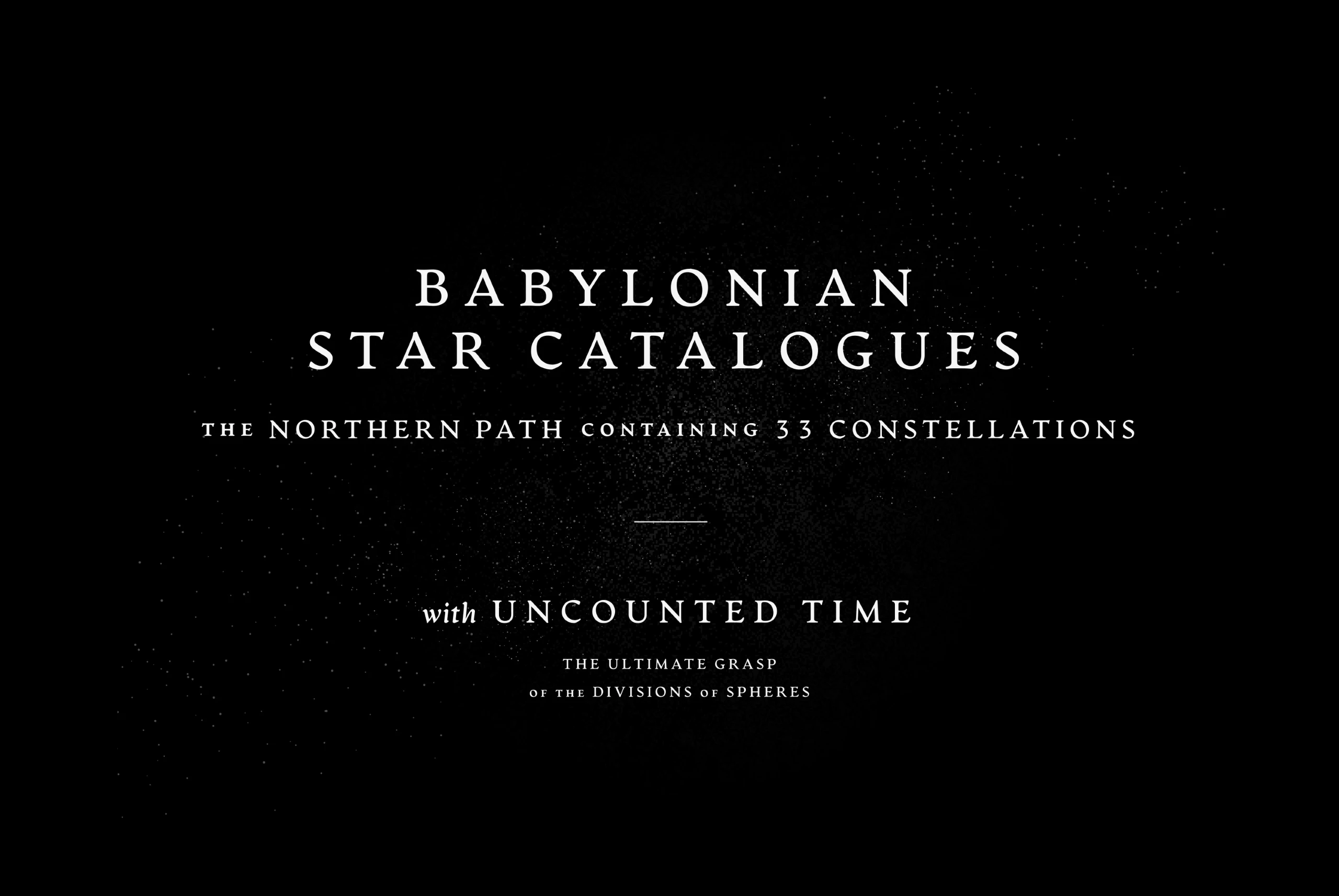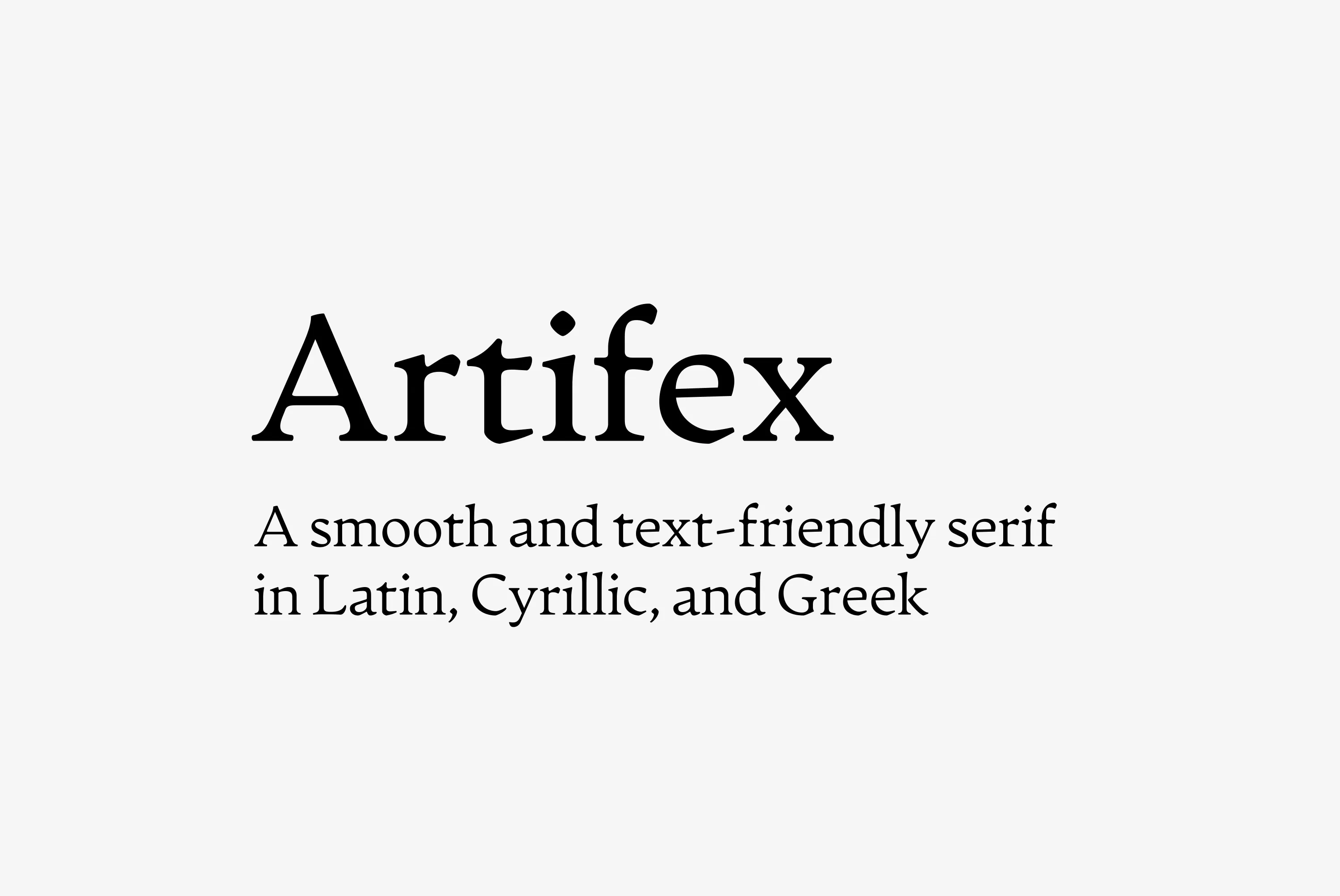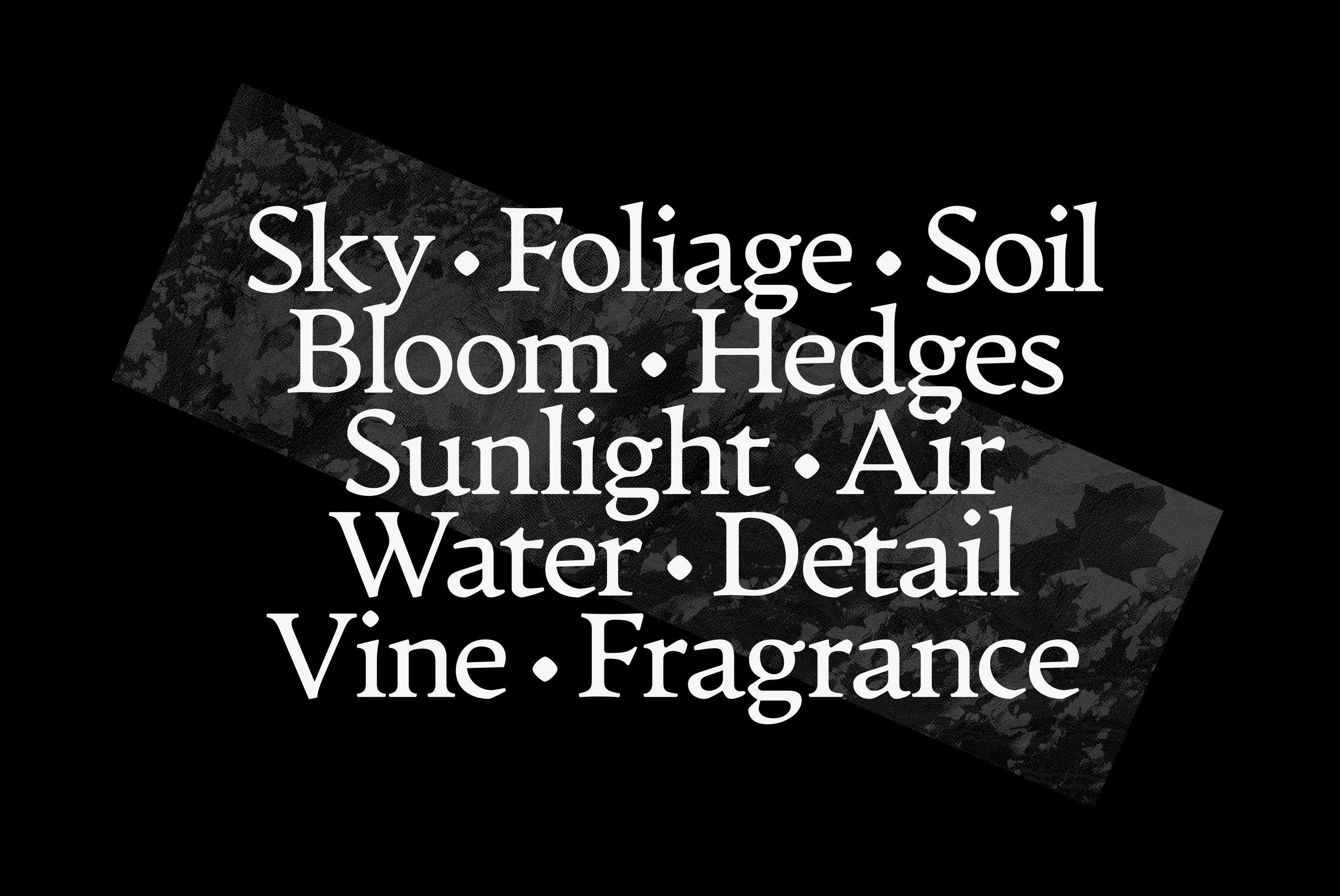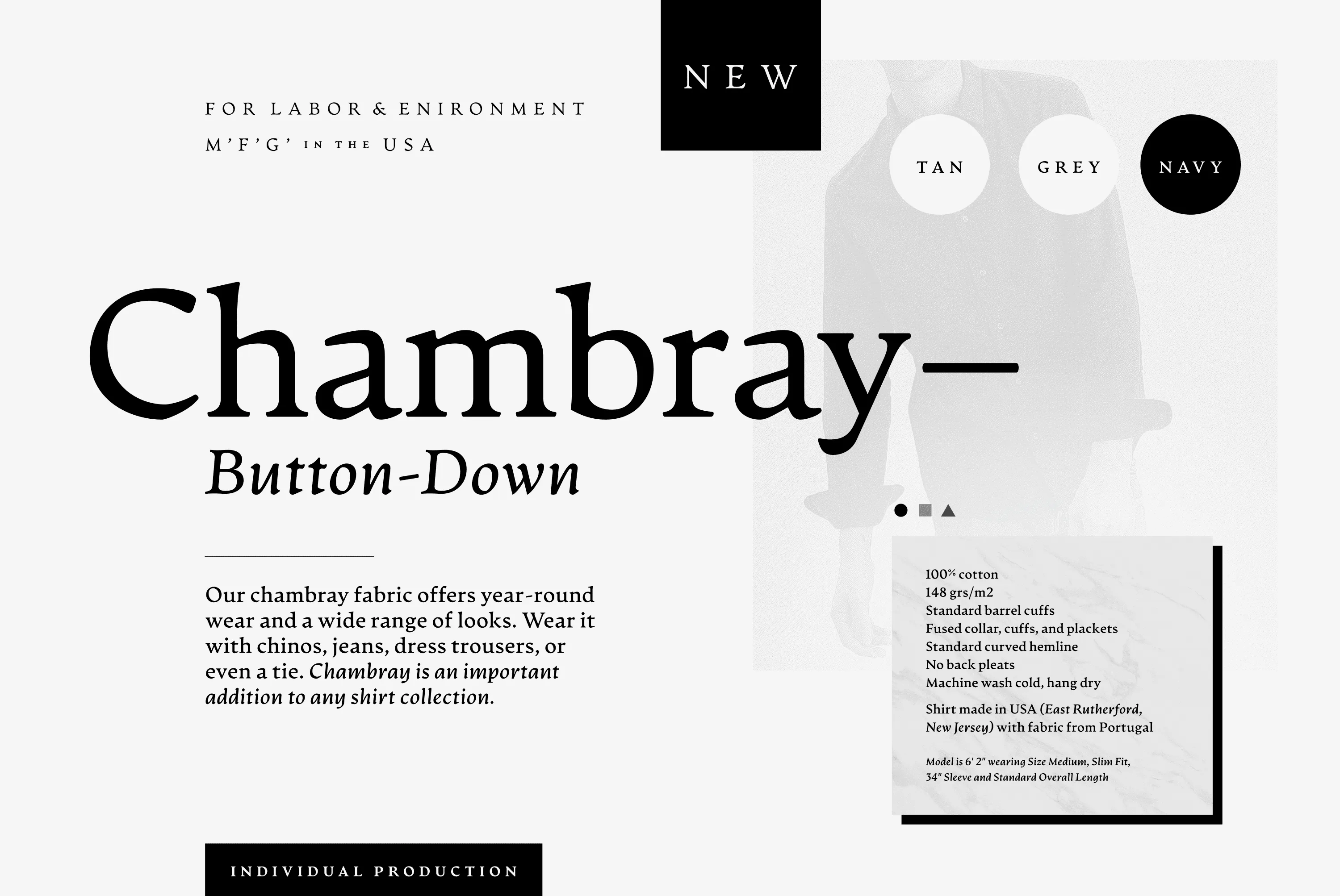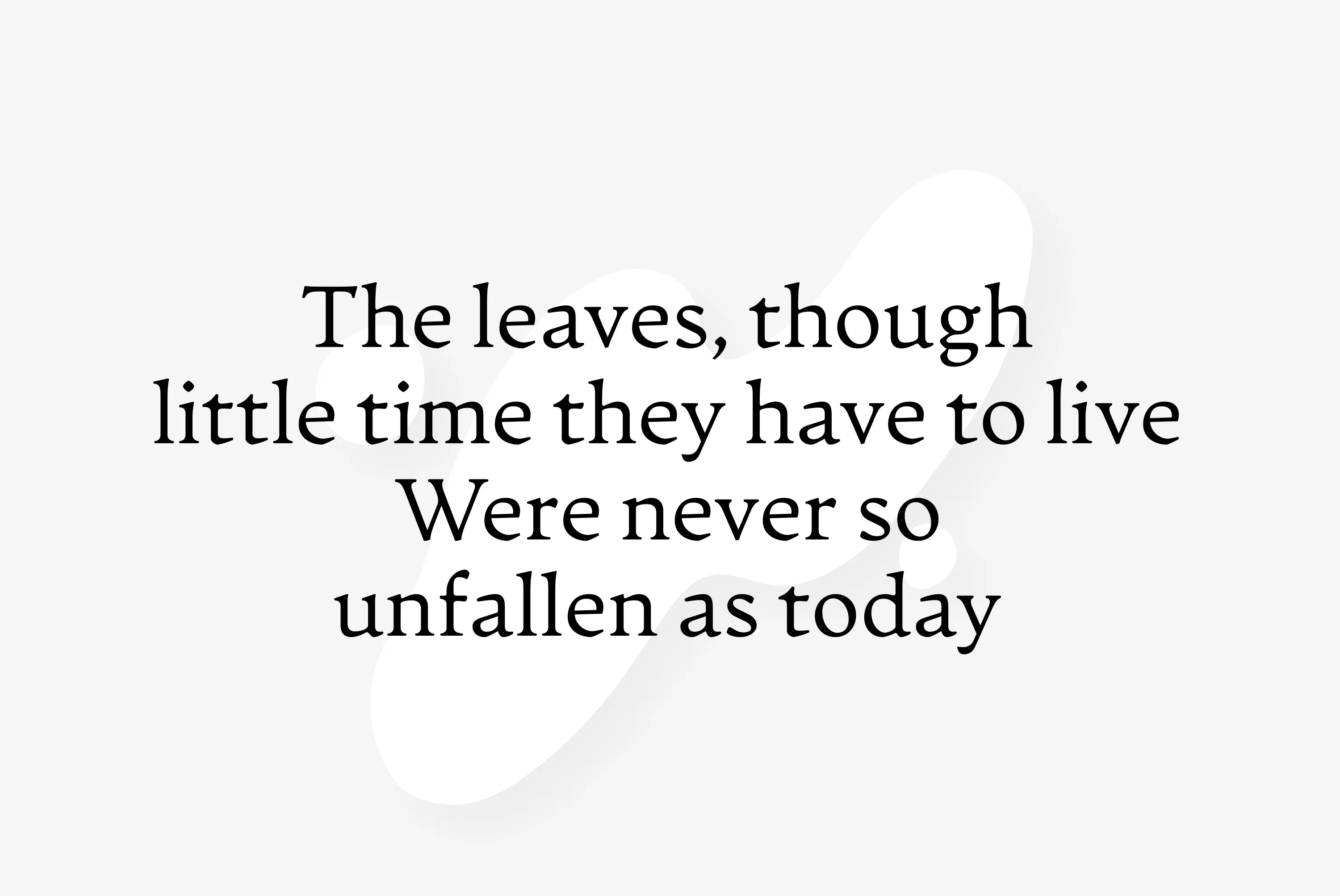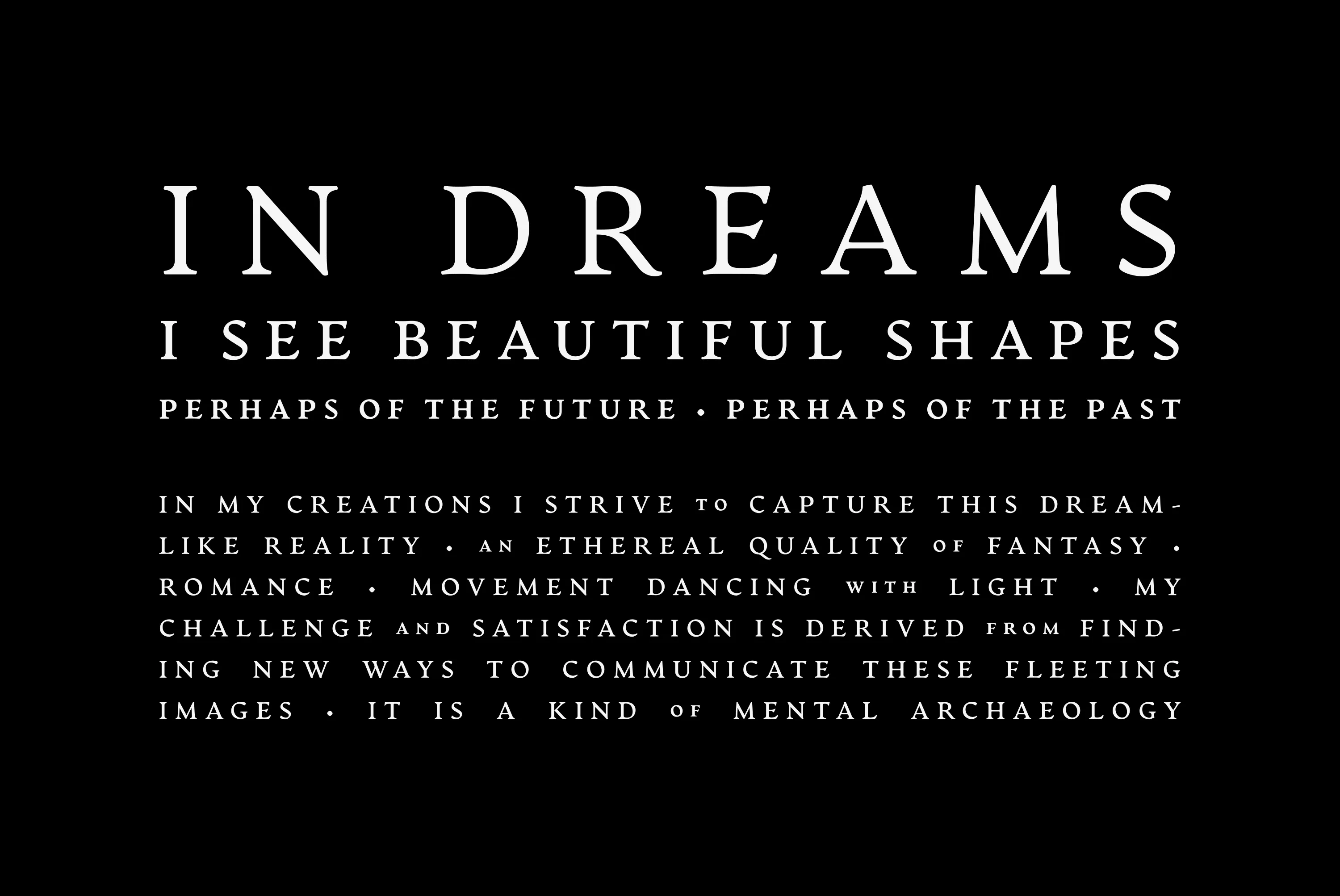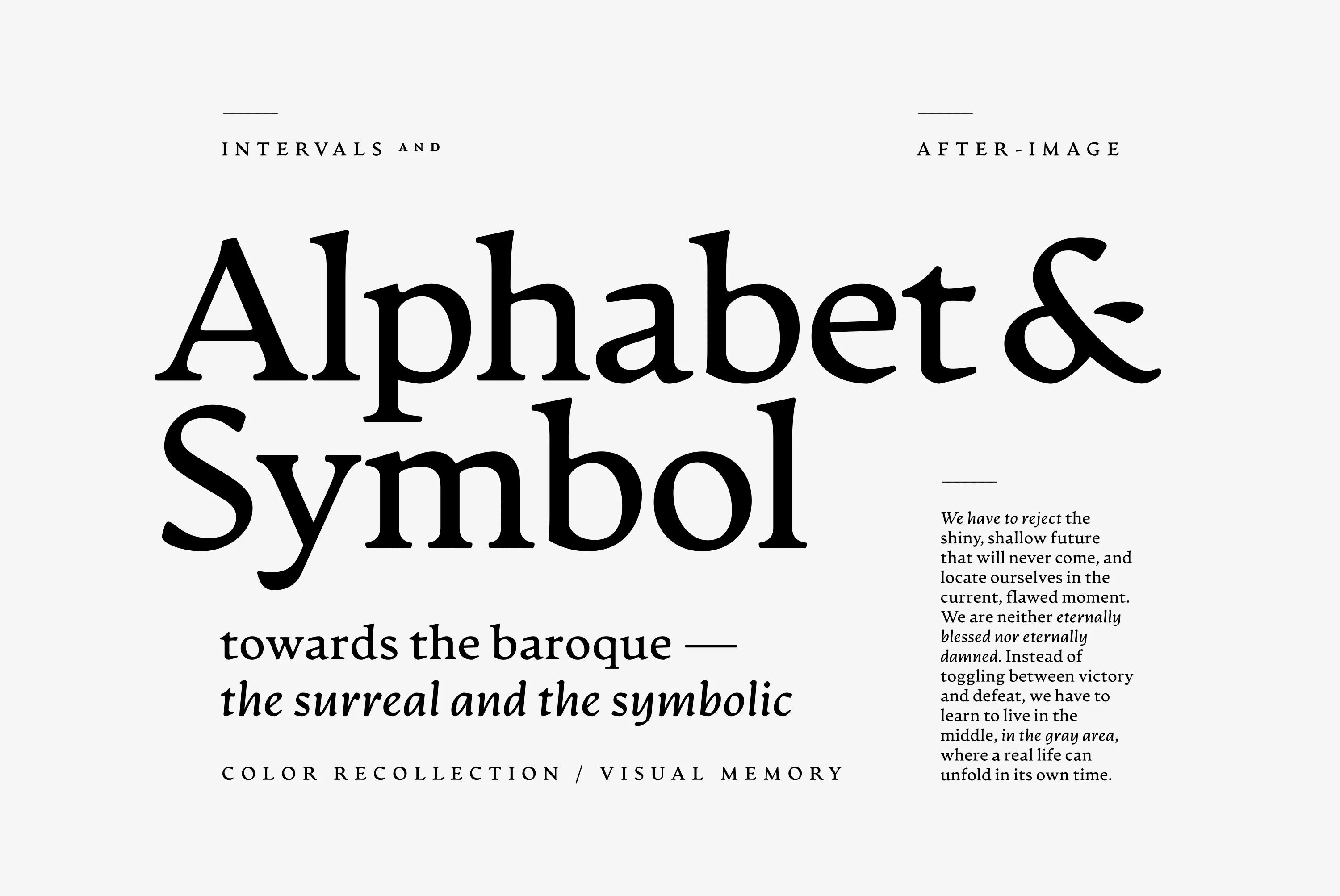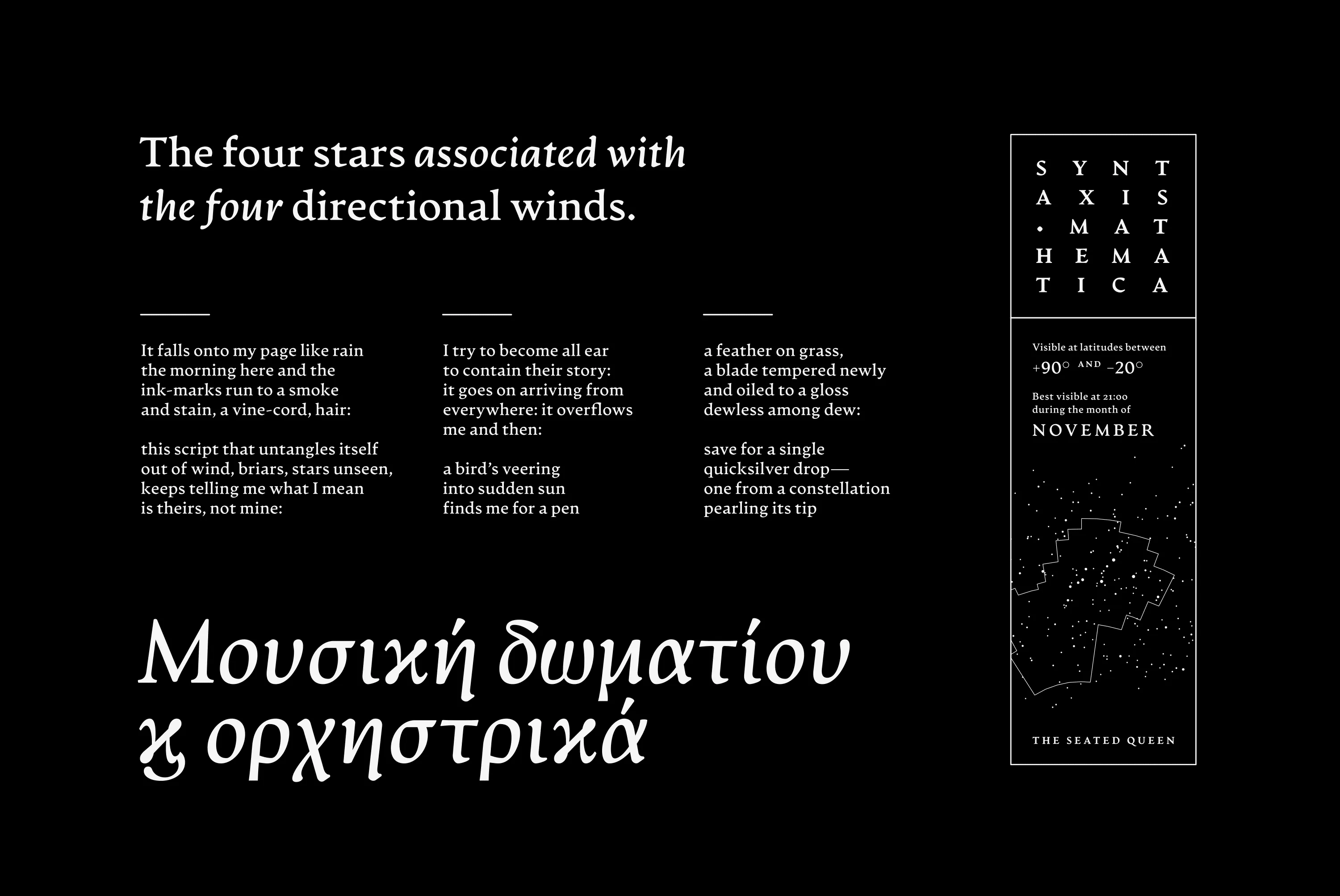
Artifex
Artifex Fonts
Artifex Hand CF is a humanist sans-serif variation on the original Artifex typeface; its serifs replaced with a subtle flare, lending a calligraphic feel and warm tone. Like its sibling, Artifex Hand is designed for flowing, easy-to-read text while doubling as a display font, thanks to its subtle details and moderate contrast.
eight Weights in Latin & Greek • Cyrillic • Vietnamese • Pinyin • IPA • Romanization Sets Script
Language support includes Belarusian, Bulgarian, Catalan, Chinese Pinyin, Croatian, Czech, Danish, Dutch, English, Filipino, Finnish, French, Fula, German, Greek, Hungarian, Indonesian, IPA, Italian, Kazakh, Latvian, Macedonian, Malay, Maltese, Norwegian, Polish, Portuguese, Romanian, Russian, Serbian, Slovak, Slovenian, Spanish, Swedish, Turkish, Ukrainian, Uzbek, Vietnamese
Artifex font by Connary Fagen Fonts — the words “BABYLONIAN STAR CATALOGUES” in upright serif capitals, with smaller lines of text below, all on a dark background with scattered light dotsArtifex font by Connary Fagen Fonts — the words “Alphabet & Symbol” in large upright serif letters, with smaller upright and italic serif text above and below, and a block of body text to the rightArtifex font by Connary Fagen Fonts — the words Sky, Foliage, Soil, Bloom, Hedges, Sunlight, Air, Water, Detail, Vine, and Fragrance in an upright serif face, separated by dots, on a dark gray leaf-patterned diagonal bandArtifex font by Connary Fagen Fonts — the upright serif words “IN DREAMS I SEE BEAUTIFUL SHAPES PERHAPS OF THE FUTURE PERHAPS OF THE PAST” above a paragraph of smaller serif text, with dots separating clauses.Artifex font by Connary Fagen Fonts — the word “Chambray” in a large upright serif font, and “Button-Down” in a smaller italic serif font, with a faint image of a shirt in the backgroundArtifex font by Connary Fagen Fonts — the upright serif text “The leaves, though little time they have to live Were never so unfallen as today”Artifex font by Connary Fagen Fonts — the word “Artifex” in a large serif font above the phrase “A smooth and text-friendly serif in Latin, Cyrillic, and Greek” in a smaller serif fontArtifex font by Connary Fagen Fonts — the words “The four stars associated with the four directional winds.” in italic serif, a grid of uppercase serif letters spelling “SYNTAXIS MATHEMATICA”, and a star chart with the words “THE SEATED QUEEN” below it.
Ligatures
Discretionary Ligatures
Contextual Alternates
Stylistic Set 1
Fractions
Lining Figures
Oldstyle Figures
Tabular Figures
Proportional Figures
Ordinals
Scientific Inferiors
Superscript
Subscript
Numerators
Denominators
Small Capitals
Small Capitals from Capitals
Case-Sensitive Forms